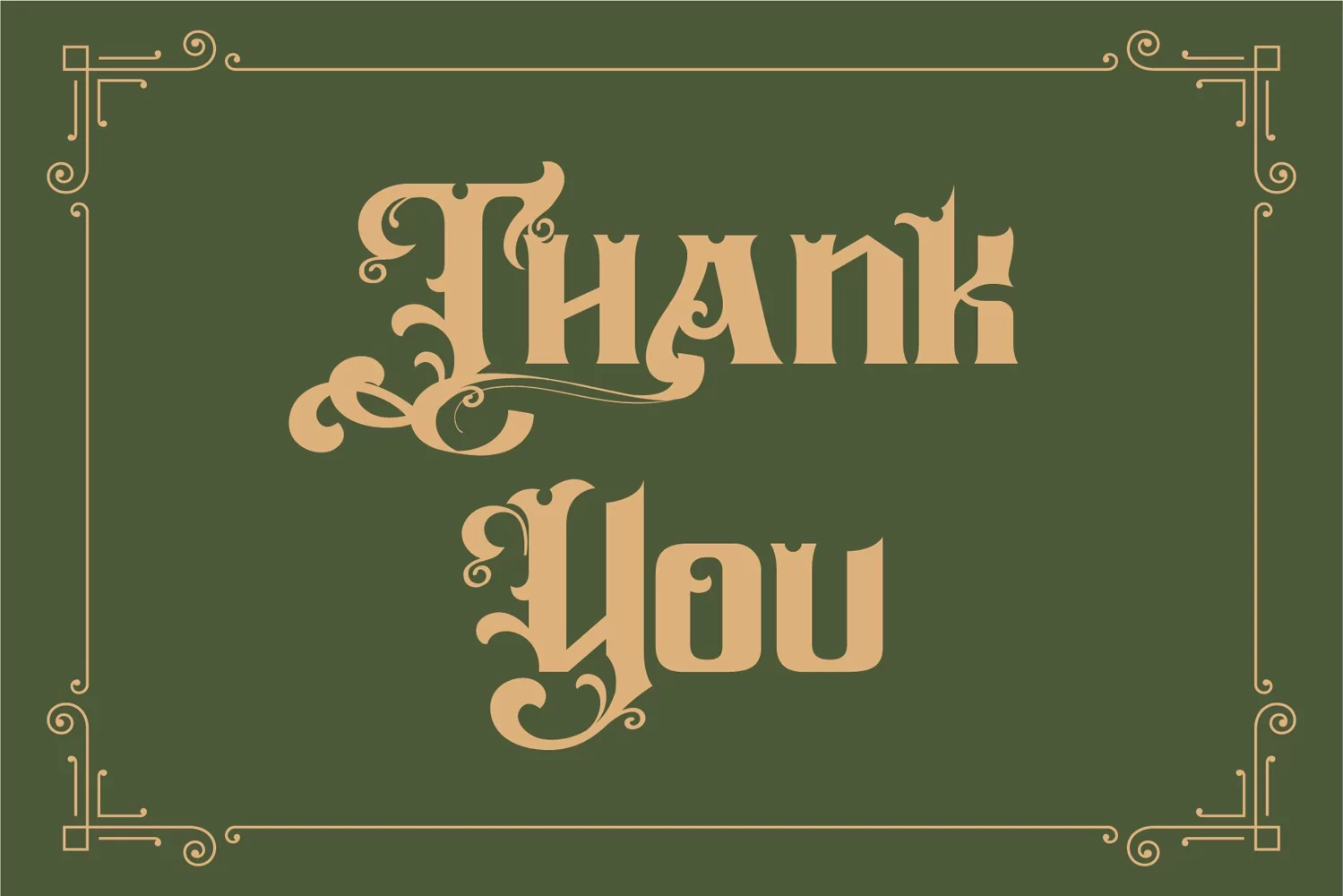
Castleton - Vintage Font
If you looking for strong font for display or title this item is a great choice to make your design authentic.
Castleto font has 189 character glyphs included the multilingual and alternate glyphs, the alternate glyphs will make your design more decorative.